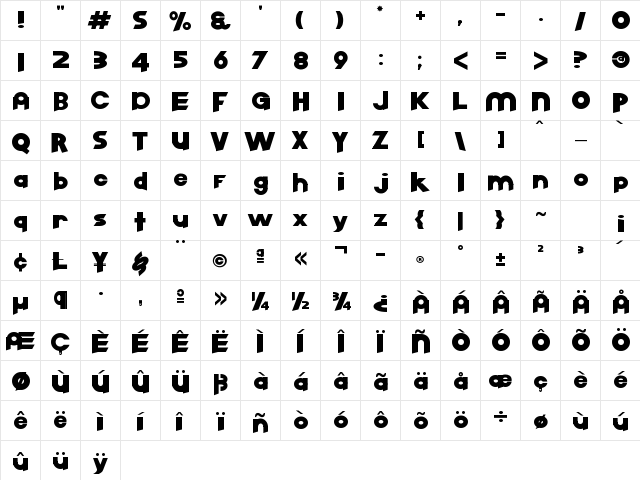
Jet Black Night Regular
| Designer | Matias Romero |
Design Context for Jet Black Night Typeface
Jet Black Night offers clean, dependable letterforms without strong stylistic allegiance, making it a practical choice for designers who need flexibility.